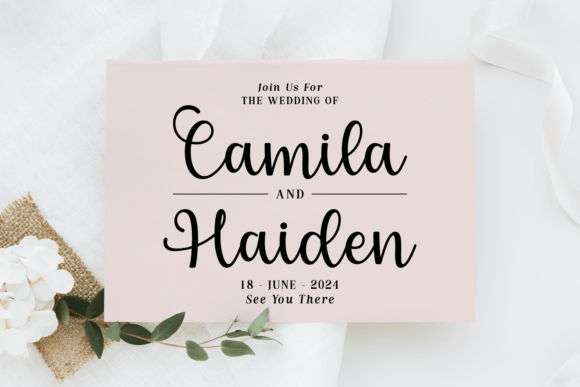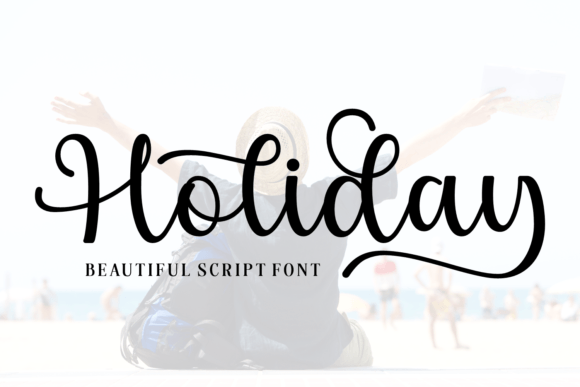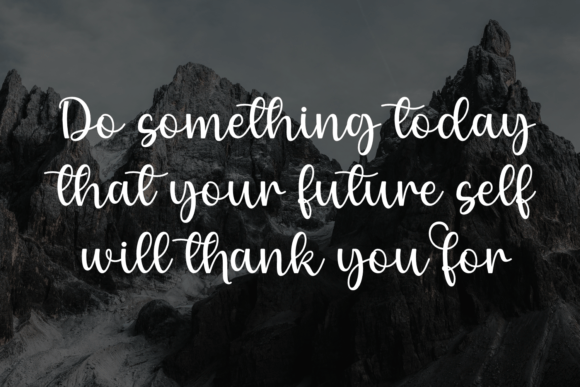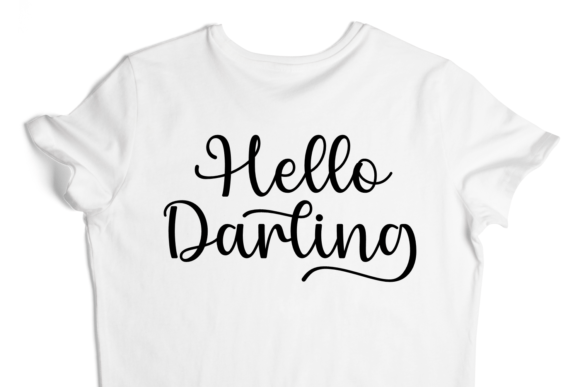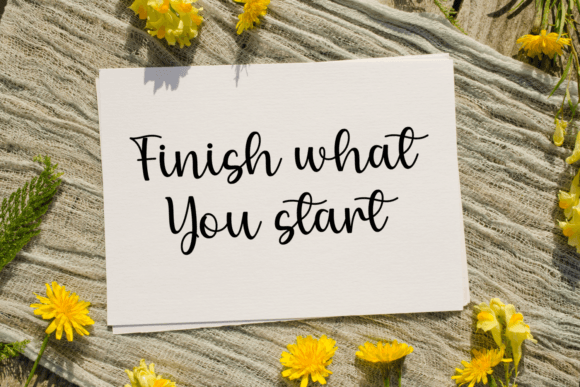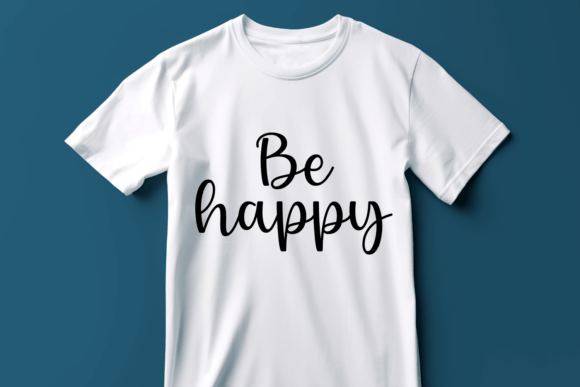
Introduction to Hey Charmela Font
Have you ever been stuck in a creative rut, scrolling through fonts, searching for the perfect one to elevate your design project? I know I have! But then, it happened – I stumbled upon the beautiful Hey Charmela Font, and my design world was transformed. Its elegant and stylish letters instantly captured my attention, and I knew I had to share it with fellow designers.
With its flowy and smooth letters, Hey Charmela Font is perfect for special invitations, greeting cards, and stylish logos. Its fancy and sophisticated feel adds a touch of class to any project, making it a valuable resource for designers. Whether you’re working on a high-quality design or just need a stylish font for a creative project, Hey Charmela Font is an excellent choice.
Key Features of Hey Charmela Font
- Unique, handwritten font style ideal for creative projects and designs
- High-quality design resource with a transparent background for easy customization
- Perfect for adding a personal touch to designs, such as logos, typography, and labels
Honest Review: Hey Charmela Font
I recently had the chance to work with the Hey Charmela Font in a creative project, and I must say it’s been a game-changer. This free download has been a great addition to my design resources, offering a unique and playful vibe that’s perfect for a variety of applications.
One of the things that works well with this font is its high quality design, making it suitable for both digital and print projects. The font’s transparent background allows for easy customization and flexibility, which is a huge plus in my book.
- ✨ Unique and playful design makes it perfect for creative projects
- ✨ High quality design suitable for both digital and print projects
- ✨ Transparent background allows for easy customization
However, I did notice a few limitations with this font. The character set is relatively limited, which may not be suitable for projects that require a wide range of characters. Additionally, the font’s stylistic variations can sometimes feel inconsistent, which may require some tweaking to get the desired look.
Overall, I’d say the Hey Charmela Font is a great addition to any designer’s toolkit, especially for those looking for a fun and playful font to add some personality to their projects. While it may have some limitations, its high quality design and unique style make it well worth considering.
The Hey Charmela Font is a high-quality design resource ideal for creative projects. It offers a transparent background, making it easy to use in various design applications.
The Hey Charmela Font is suitable for various creative projects, including:
- Branding and logo design.
- Marketing materials and social media graphics.
- Wedding invitations and event materials.